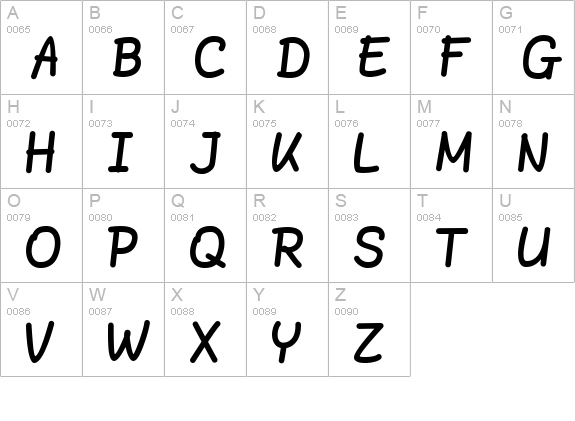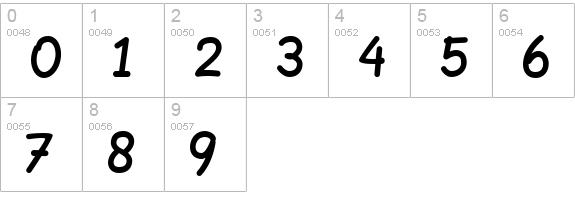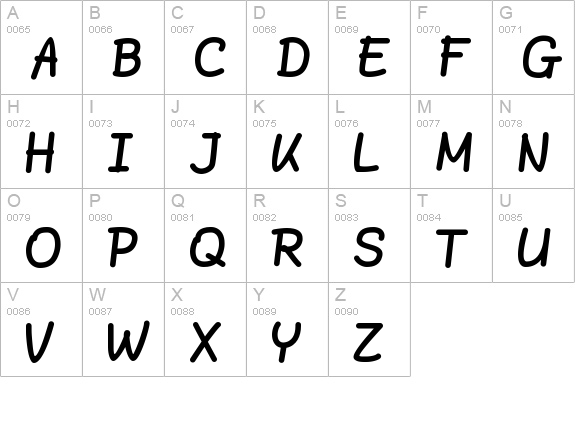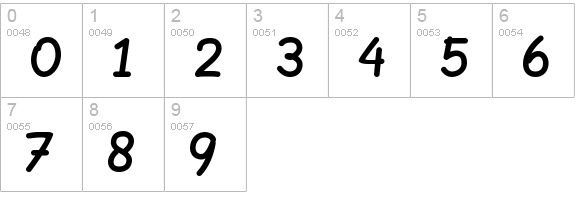
Blokletters Viltstift Font Details
Blokletters Viltstift font is a charming and playful typeface that brings a hand-drawn feel to your designs. With its bold lines and slightly irregular edges, this font exudes a sense of creativity and spontaneity. Perfect for adding a touch of whimsy to your projects, Blokletters Viltstift is sure to make a statement. The best part? This delightful font is available for free download at FontsMarket.com. Whether you're working on a poster, flyer, or greeting card, Blokletters Viltstift font will add a unique and eye-catching touch to your designs. Embrace the fun and creative spirit of this font and let your imagination soar!